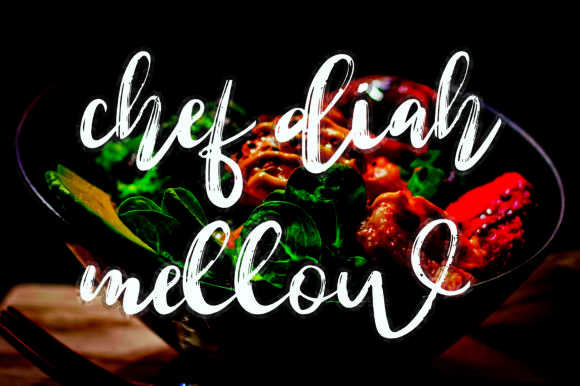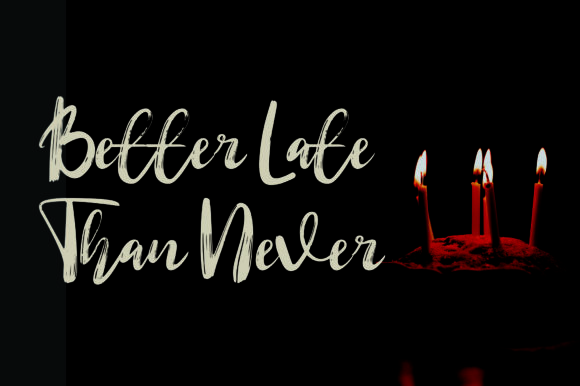
About Chef Diah Mellow Font
Chef Diah Mellow is a delicate, sweet and romantic brushed handwritten font. It looks beautiful on a variety of designs requiring a personalized style, such as wedding invitations, thank you cards, weddings, greeting cards, logos and so on.